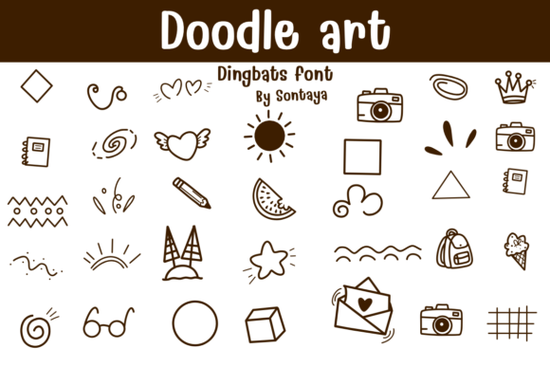
Designers, crafters, and small business owners often look for unique ways to add personality to their projects. The Doodle Art Font is a versatile choice that brings a playful, hand-drawn feel to any design. Whether you're working on a logo, social media post, or print-on-demand product, this font offers a fresh and creative edge. With support for multiple formats like OTF, TTF, ProcreateFont, and Affinity Designer Font, it’s easy to integrate into your workflow.
The Doodle Art Font includes a range of styles, from simple outlines to detailed doodles and dingbats. This makes it ideal for coloring pages, illustrations, and decorative text. Its flexibility allows users to experiment with different visual effects, making it a valuable addition to any digital toolkit. If you're looking for a font that adds character without complicating your design process, this could be the right fit.
What Makes Doodle Art Font Unique?
One of the standout features of the Doodle Art Font is its variety of styles. It includes not only standard lettering but also doodle elements, cartoon symbols, and outline designs. These can be used to create eye-catching visuals for everything from greeting cards to branding materials. The inclusion of dingbats and cartoon icons adds an extra layer of creativity, allowing users to mix and match elements for a custom look.
Another advantage is the font's compatibility with popular design software. Whether you're using Procreate, Affinity Designer, or Adobe applications, the Doodle Art Font works seamlessly across platforms. This ensures that your designs maintain consistency no matter where you create them. For those who work with multiple tools, this level of flexibility is a major plus.
How to Use Doodle Art Font in Your Projects
For print-on-demand sellers, the font’s outline and coloring options make it perfect for creating customizable templates. You can offer customers a range of design choices, from solid text to blank outlines they can color themselves. This adds value to your products and gives buyers more creative freedom.
If you're new to using custom fonts, the Doodle Art Font provides a user-friendly experience. Its clear documentation and intuitive design make it accessible even for those with limited design experience. Whether you're creating something for personal use or commercial purposes, this font can help bring your ideas to life.
When choosing a font, consider how it fits with your overall design vision. The Doodle Art Font is great for adding a whimsical touch, but other fonts may suit different styles or purposes. Experimenting with different options can help you find the perfect match for your needs.
Whether you're a professional designer or a hobbyist, the Doodle Art Font is a valuable tool that can elevate your creative work. Its versatility, ease of use, and compatibility with various design programs make it a practical choice for a wide range of projects. By incorporating this font into your workflow, you can add a unique and expressive element to your designs.
Before finalizing your project, take a moment to review your design and ensure the font complements the overall look. Testing different styles and layouts can help you achieve the best results. With the right approach, the Doodle Art Font can become a go-to resource for your creative endeavors.